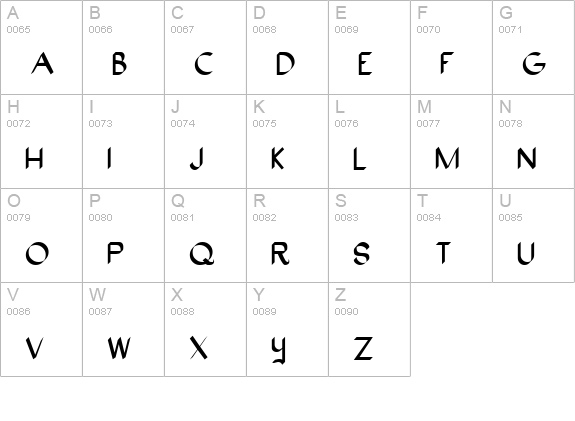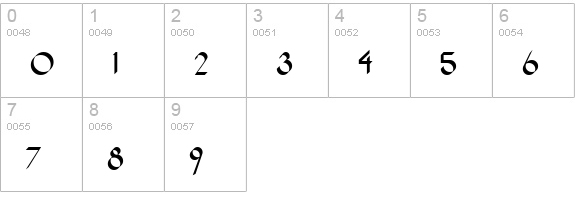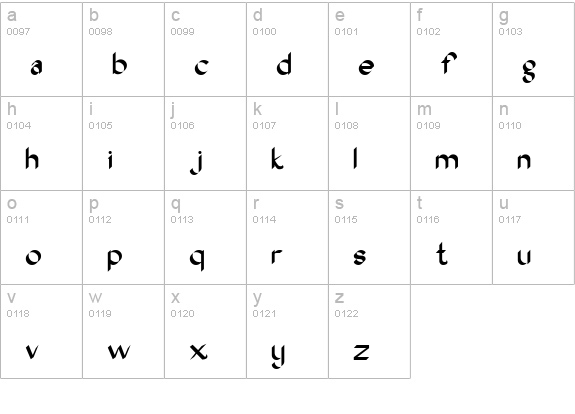
OakWood Regular Font Details
OakWood Regular is the standard, neutral variant in the OakWood typeface family \xE2\x80\x94 well suited to general body text, paragraphs, and standard typographic work.
OakWood Regular font is a classic and timeless typeface that exudes elegance and sophistication. With its clean lines and well-balanced letterforms, OakWood Regular is perfect for a wide range of design projects, from branding to editorial design. This versatile font is ideal for creating a sense of tradition and reliability in your designs. The best part? OakWood Regular font is available for free download at FontsMarket.com. Whether you're a designer looking to add a touch of refinement to your work or a business owner seeking a professional and polished look for your brand, OakWood Regular is the perfect choice. Download it today and elevate your design projects with this exquisite font.